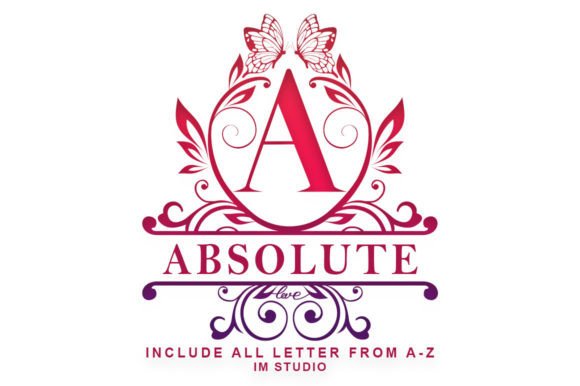
Introducing Absolute Monogram Font, a captivating decorative font that will transport you to a world of elegance and charm. This exquisite font, crafted by the talented IM Studio, exudes a timeless beauty that is sure to leave a lasting impression.
Adorn your invitations with a touch of sophistication, or let your stationary art radiate with a unique personality. Bring your social media posts to life with eye-catching visuals, or create heartwarming greeting cards that will touch the hearts of your loved ones. The possibilities are endless with Absolute Monogram Font.
Immerse yourself in the world of movies and scripts, and let Absolute Monogram Font be your creative companion. With its authentic feel, this font will add a touch of cinematic magic to your projects. Whether you're creating posters, flyers, or movie titles, Absolute Monogram Font will elevate your designs to new heights.
But it doesn't stop there. Unleash your creativity and explore the endless possibilities of Absolute Monogram Font. From wedding invitations that exude romance to branding projects that demand attention, this font has the power to transform your ideas into stunning realities.
Step into the world of Absolute Monogram Font and be captivated by its charm. Let your imagination soar as you create designs that speak to the heart and leave a lasting impression. Experience the beauty of Absolute Monogram Font today and embark on a creative journey like no other.